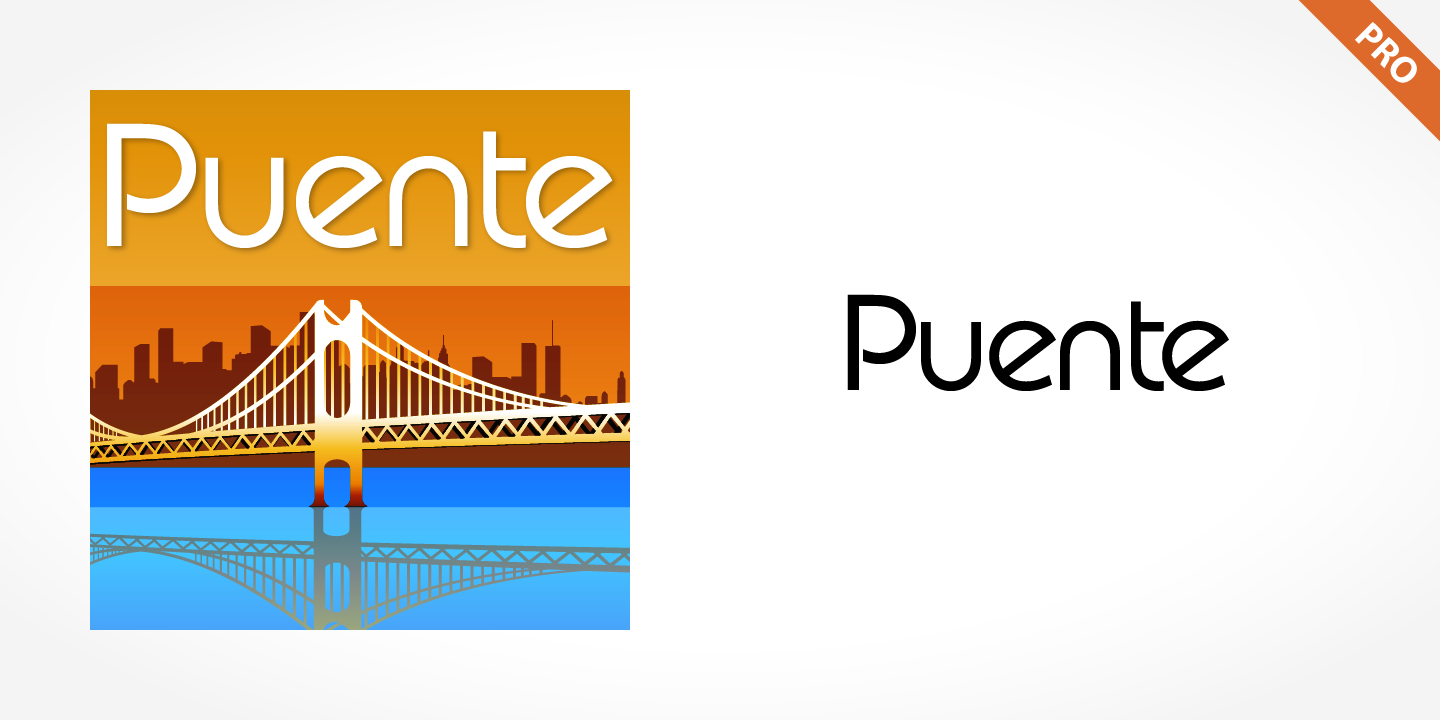
Puente Pro
Puente Pro is a display sans font family. This typeface has six styles and was published by SoftMaker.
Puente Pro is a simple, geometric sans serif typeface in the Bauhaus style. It should be set closely for maximum effect. The simplicity of its geometric forms gives Puente Pro a timeless quality which makes it ideal for a variety of applications.